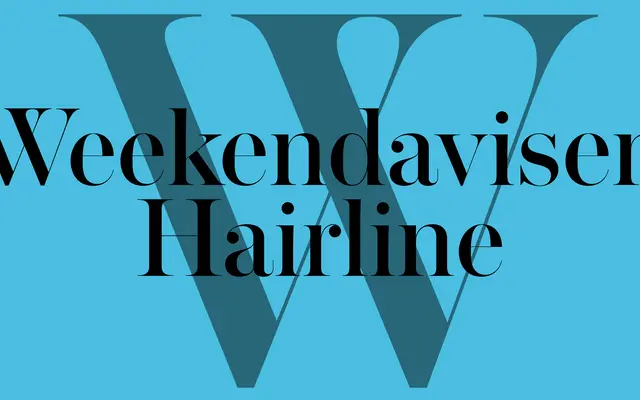
A bespoke type system commissioned for Danish weekly broadsheet Weekendavisen, spanning hairline, display, text and sans subfamilies for print and screen.
Commissioned by Weekendavisen, a Danish weekly with 250,000 readers and a lineage traceable to Berlingske Tidende (1749), the system comprises four distinct subfamilies — Hairline, Display, Text and Sans — with the Sans extending into Condensed and X Condensed widths. Designed for both print and digital reading, the project won the SND World's Best Designed Newspaper award in 2021 and 2026, and the type system received the Tokyo TDC Award in 2021. A thorough editorial system built to carry the visual identity of a historic publication across all formats.
The family includes a hairline, display, and text serif alongside a sans companion, consistent with a transitional or classical newspaper serif lineage rooted in Berlingske Tidende (1749). The hairline and display cuts suggest high-contrast modulated strokes typical of transitional classification.